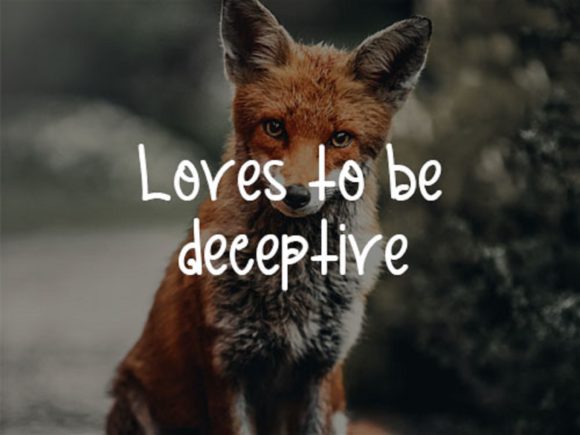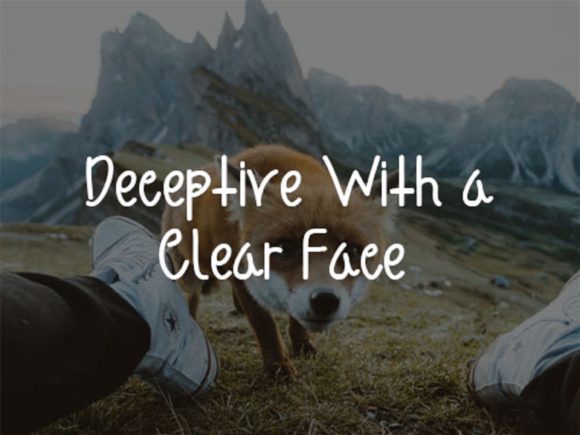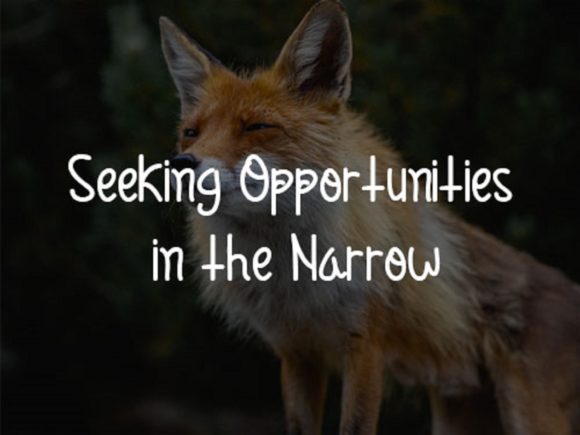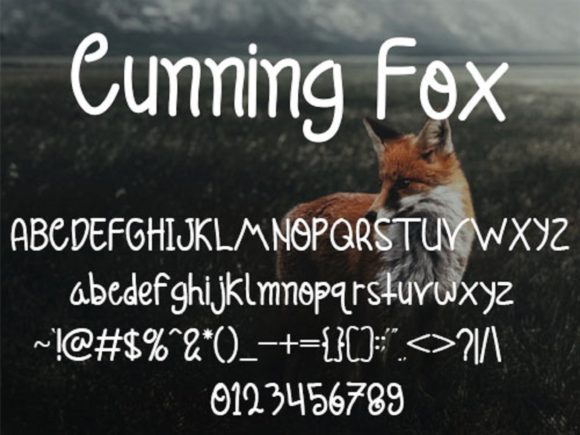
Introduction to Cunning Fox Font
As a designer, have you ever found yourself in the midst of a creative project, searching for the perfect font to bring your vision to life? Perhaps you’ve scrolled through countless options, only to settle for something that’s “good enough.” But what if you could discover a font that not only meets your expectations but exceeds them? Look no further than the Cunning Fox Font, a delightful and charming handwritten font that’s sure to captivate your audience.
With its high-quality design and unique style, the Cunning Fox Font is a valuable resource for any creative project. Whether you’re working on a digital design, crafting a wedding invitation, or creating a social media campaign, this font is sure to add a touch of warmth and personality to your work. And the best part? It’s available for free download, making it an accessible and versatile design resource for designers of all levels.
Key Features of Cunning Fox Font
- Unique, hand-drawn design with a transparent background for flexibility
- Perfect for logos, branding, and other design elements requiring a playful, whimsical touch
- Designed to be highly legible and versatile across various design applications
Honest Review: Cunning Fox Font
I recently stumbled upon the Cunning Fox Font, and I must say, it’s a great addition to any design resource collection. The font is sleek, modern, and has a lot of character, making it perfect for creative projects that require a touch of sophistication.
Here are some things that work well with the Cunning Fox Font:
- ✨ High-quality design: The font is crisp and clear, making it ideal for printing or using on digital platforms.
- ✨ Customizable: The font comes in a transparent background, allowing for seamless integration with any design.
- ✨ Versatile: The font is suitable for a wide range of creative projects, from logos to headings and body text.
- ⚠️ Limited font styles: The font only comes in a few styles, which may limit its versatility for more complex projects.
- ⚠️ Not suitable for small text: The font may be difficult to read at smaller font sizes, making it less ideal for body text.
Overall, I’m impressed with the Cunning Fox Font. It’s a solid design resource that’s perfect for designers looking for a high-quality, modern font for their creative projects.
For the best results, use the Cunning Fox Font in conjunction with high-quality images and design elements. Experiment with different font sizes and styles to add visual interest to your design.
The Cunning Fox Font is suitable for a variety of creative projects, including logos, brochures, and social media graphics. Its high-quality design and transparent background make it an excellent choice for designers of all skill levels.